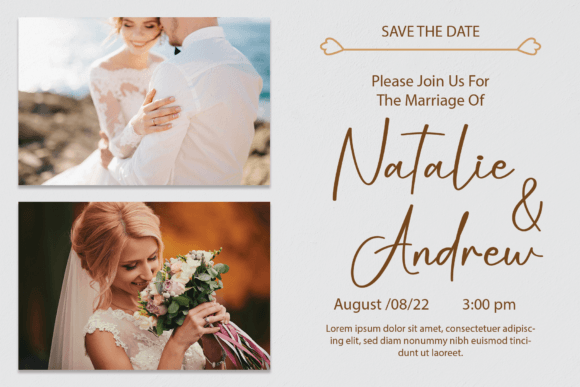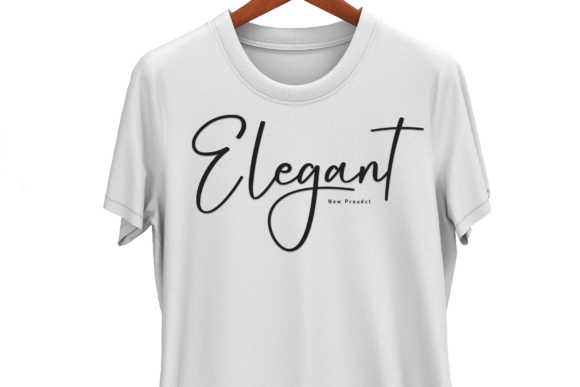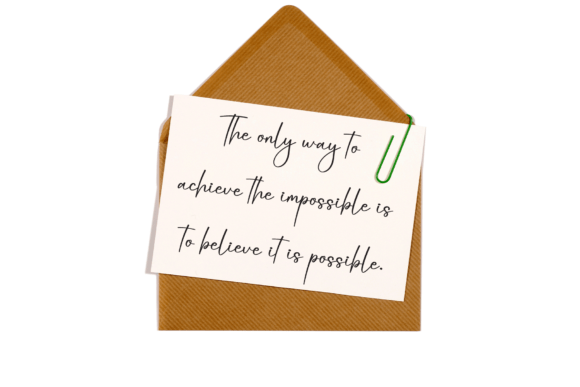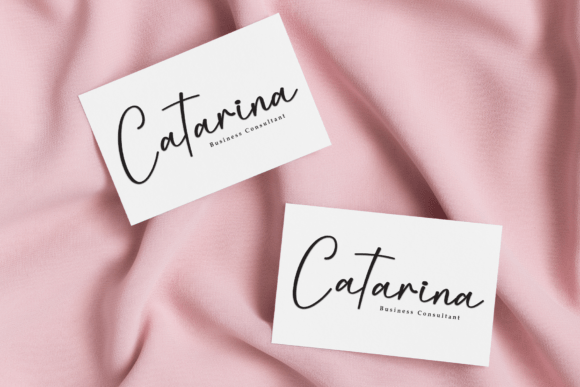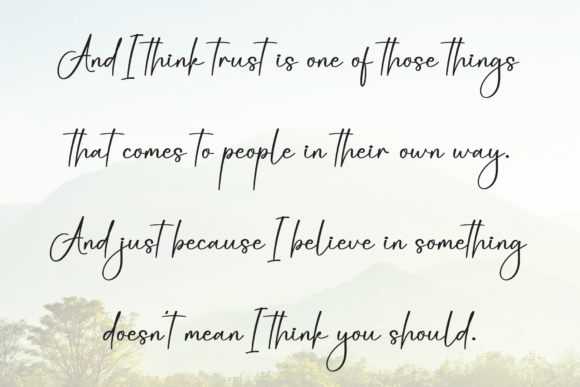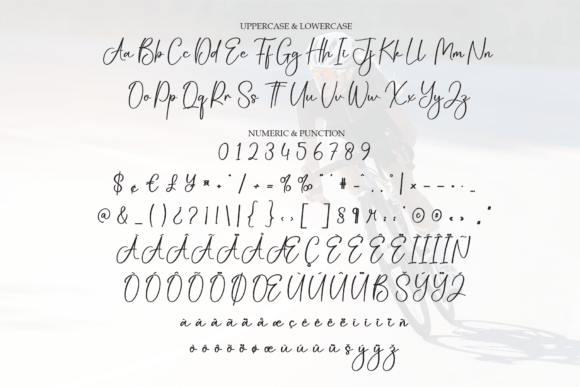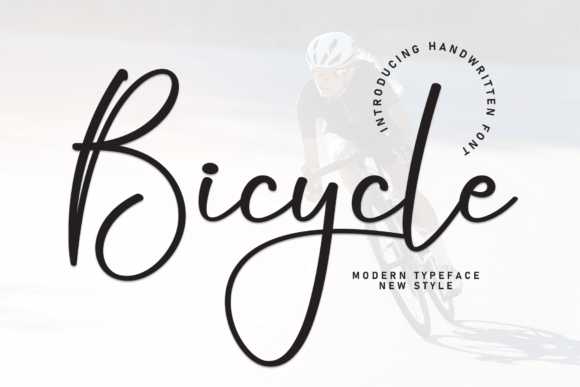
Bicycle Font: Add a Personal Touch to Your Projects with this Friendly Handwritten Font
Are you looking for a font that can add a warm and inviting atmosphere to your projects? Look no further than the Bicycle font! This friendly handwritten font is perfect for designers and crafters who want to create a personal touch in their work. With its casual and approachable style, Bicycle is ideal for a variety of purposes, from notes and invitations to posters and more.
The Charm of Bicycle Font
Bicycle font is a simple yet charming font that is easy to read and adds a touch of personality to any text. Its handwritten style gives it a unique and personal feel that is perfect for creating a warm and inviting atmosphere. Whether you’re working on a project for a client or creating something for your own personal use, Bicycle font is sure to impress.
Uses of Bicycle Font
One of the best things about Bicycle font is its versatility. It’s perfect for a wide range of projects, including:
- Notes and invitations: Add a personal touch to your notes and invitations with Bicycle font. It’s perfect for creating warm and inviting messages that will make your recipients feel special.
- Posters and flyers: Use Bicycle font to create eye-catching posters and flyers that will grab the attention of your audience. Its casual and approachable style makes it perfect for promoting events, products, or services.
- Social media graphics: Add a personal touch to your social media graphics with Bicycle font. It’s perfect for creating engaging and shareable content that will help you connect with your audience.
- Branding and packaging: Use Bicycle font to create a unique and memorable brand identity. Its simple charm makes it easy to read and adds a touch of personality to any text.
Why Choose Bicycle Font?
So why choose Bicycle font over other fonts? Here are just a few reasons:
- Unique and personal: Bicycle font has a unique and personal feel that sets it apart from other fonts. Its handwritten style gives it a touch of warmth and personality that is hard to find in other fonts.
- Easy to read: Despite its personal feel, Bicycle font is easy to read and understand. Its simple charm makes it perfect for creating clear and concise messages.
- Versatile: As mentioned earlier, Bicycle font is perfect for a wide range of projects. Its versatility makes it a great addition to any designer’s or crafter’s toolkit.
How to Use Bicycle Font
- Pair it with other fonts: Bicycle font pairs well with other fonts, such as sans-serif fonts or script fonts. Experiment with different combinations to find the one that works best for your project.
- Use it in different sizes: Bicycle font looks great in a variety of sizes, from small and delicate to large and bold. Experiment with different sizes to find the one that works best for your project.
- Experiment with colors: Bicycle font looks great in a variety of colors, from bright and bold to soft and pastel. Experiment with different colors to find the one that works best for your project.
In conclusion, Bicycle font is a friendly handwritten font that adds a personal touch to your projects. With its casual and approachable style, it’s perfect for creating a warm and inviting atmosphere. Whether you’re a designer or crafter, Bicycle font is a great addition to your toolkit. So why not pedal into creativity with Bicycle font today?
With its simple charm, versatility, and ease of use, Bicycle font is sure to become a favorite among designers and crafters. So go ahead, give it a try, and see how it can add a personal touch to your projects!